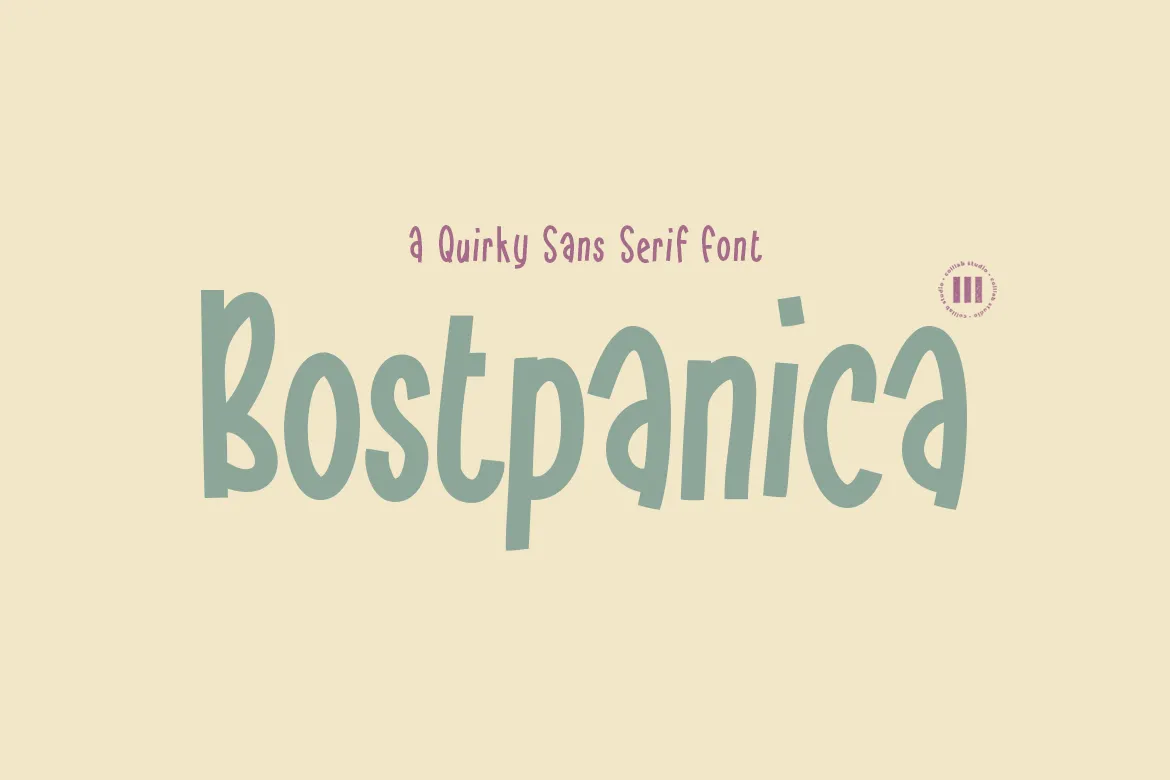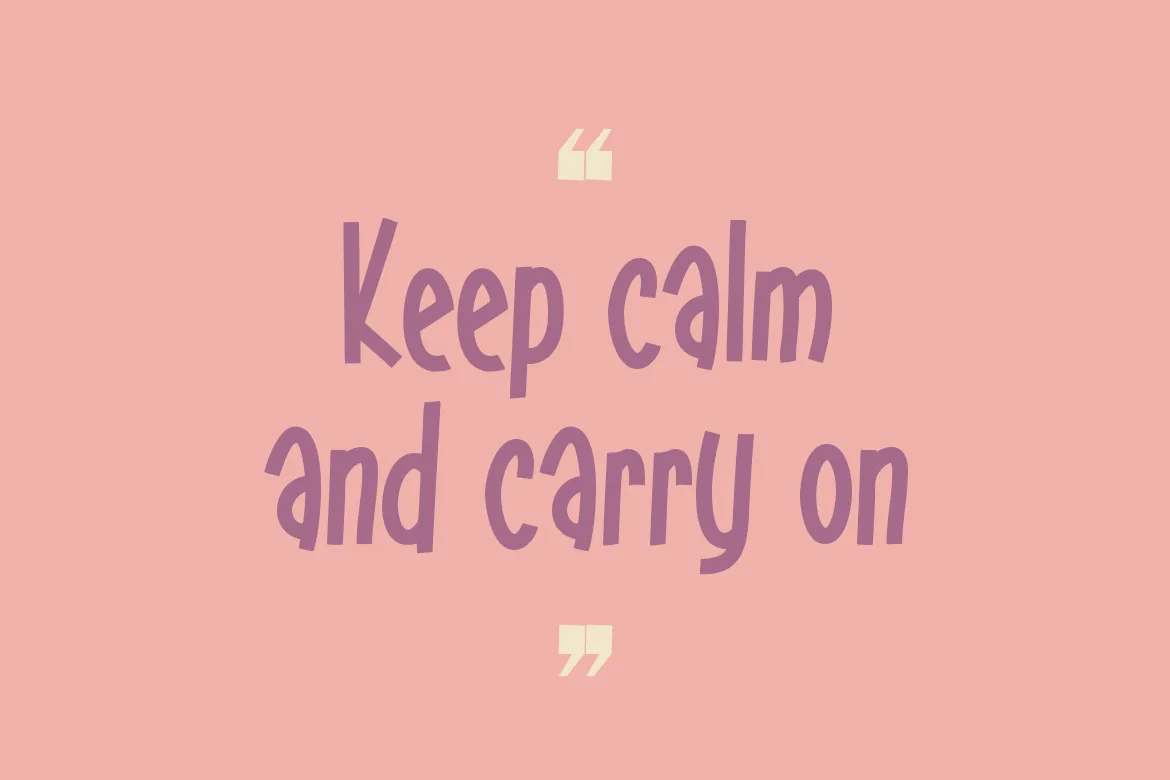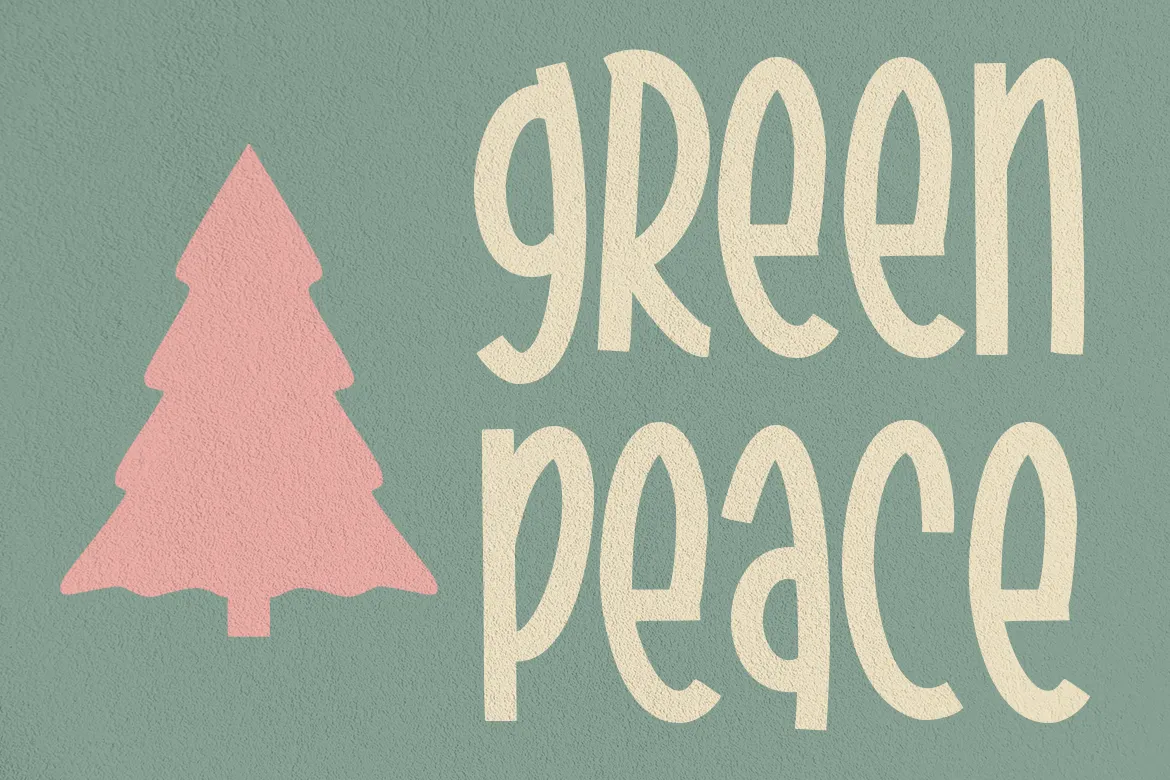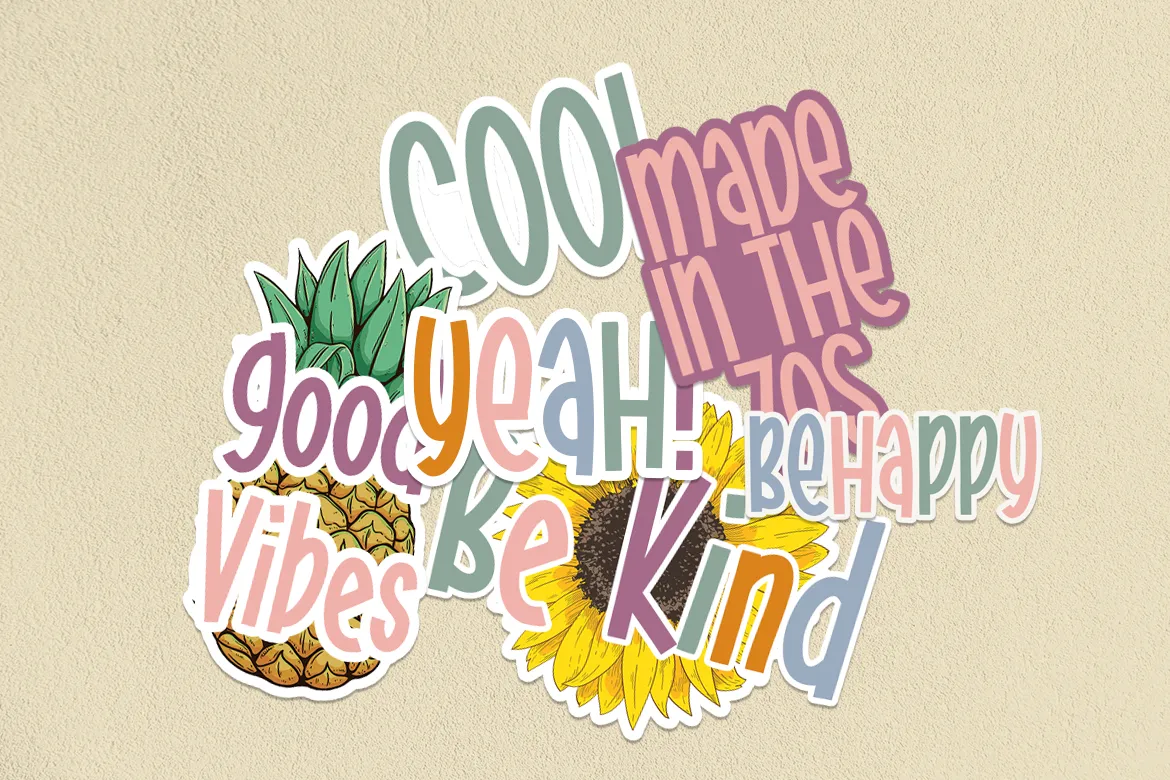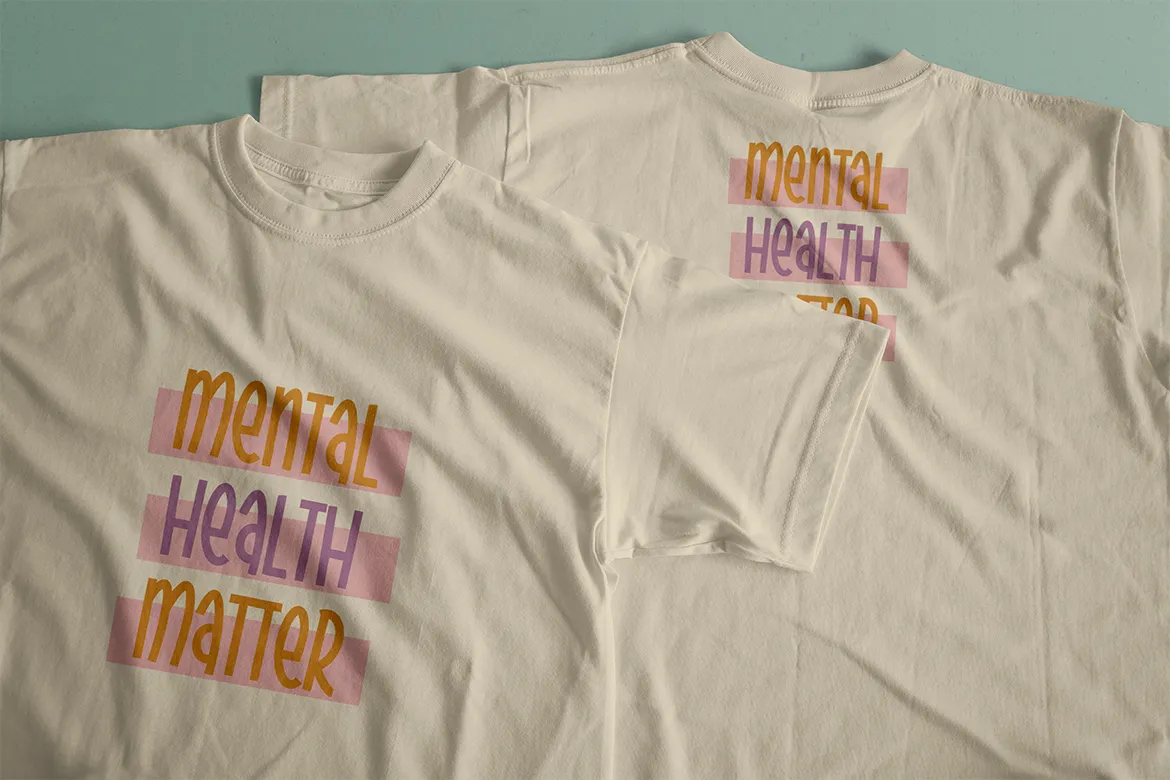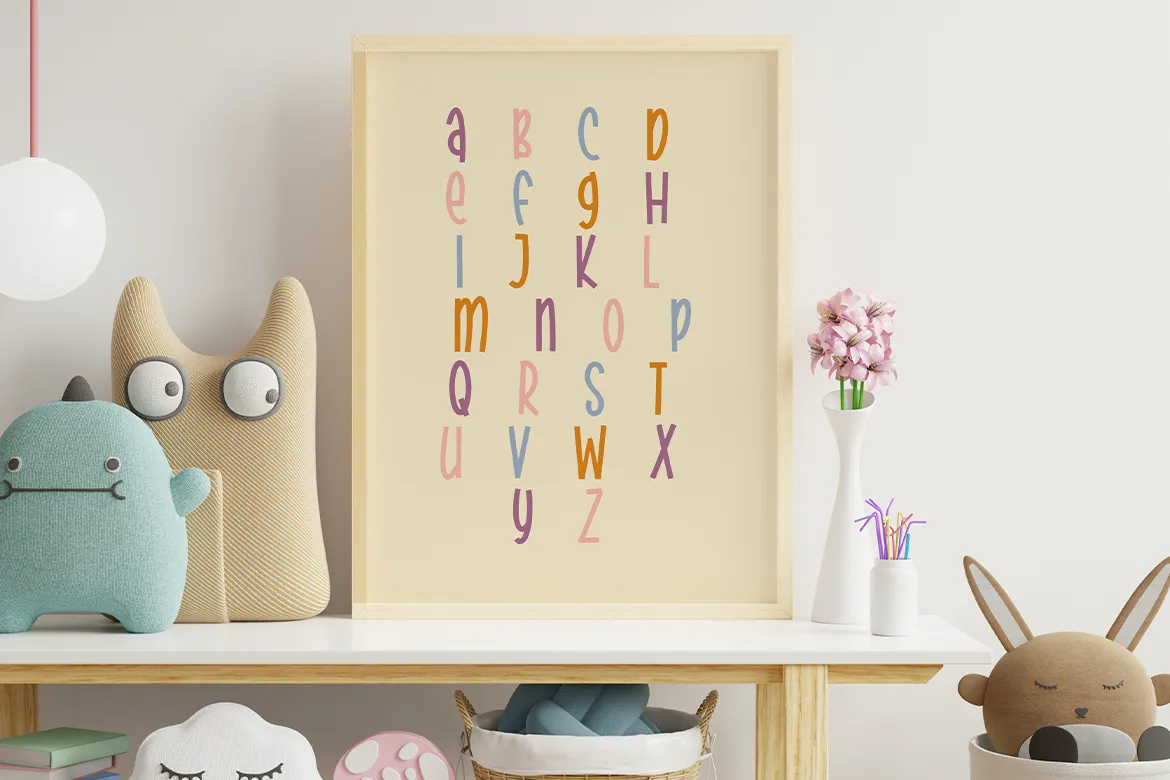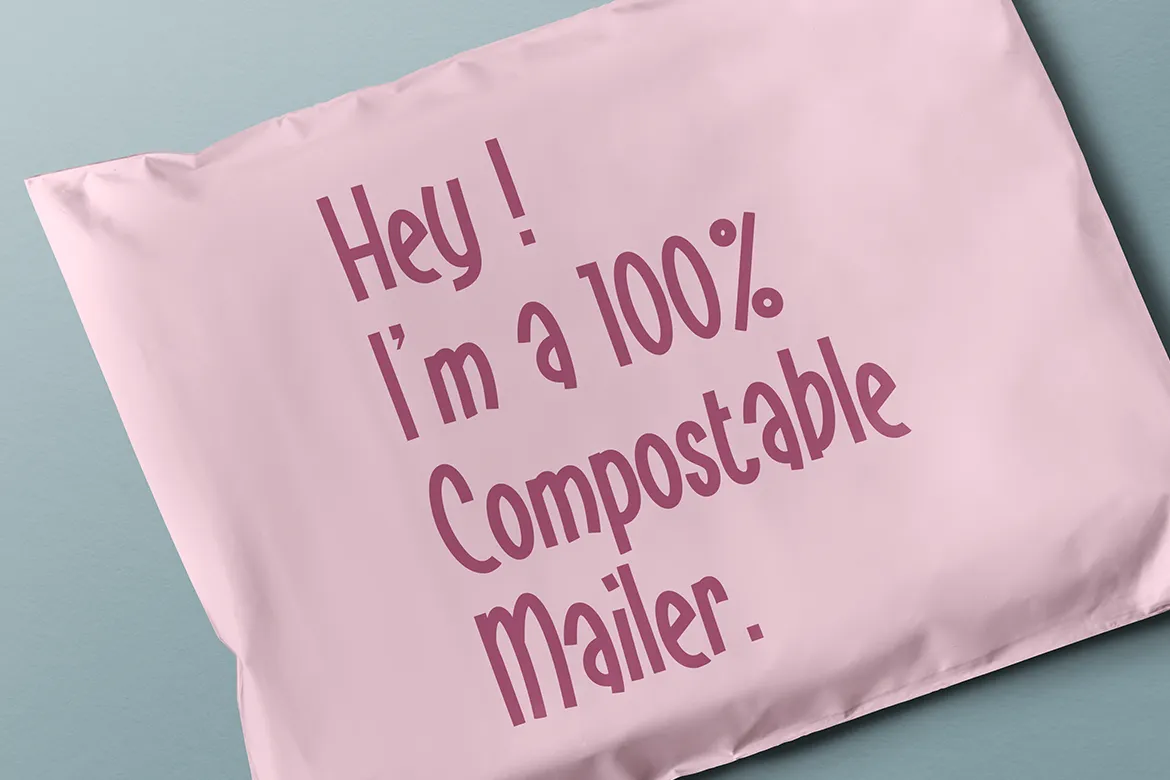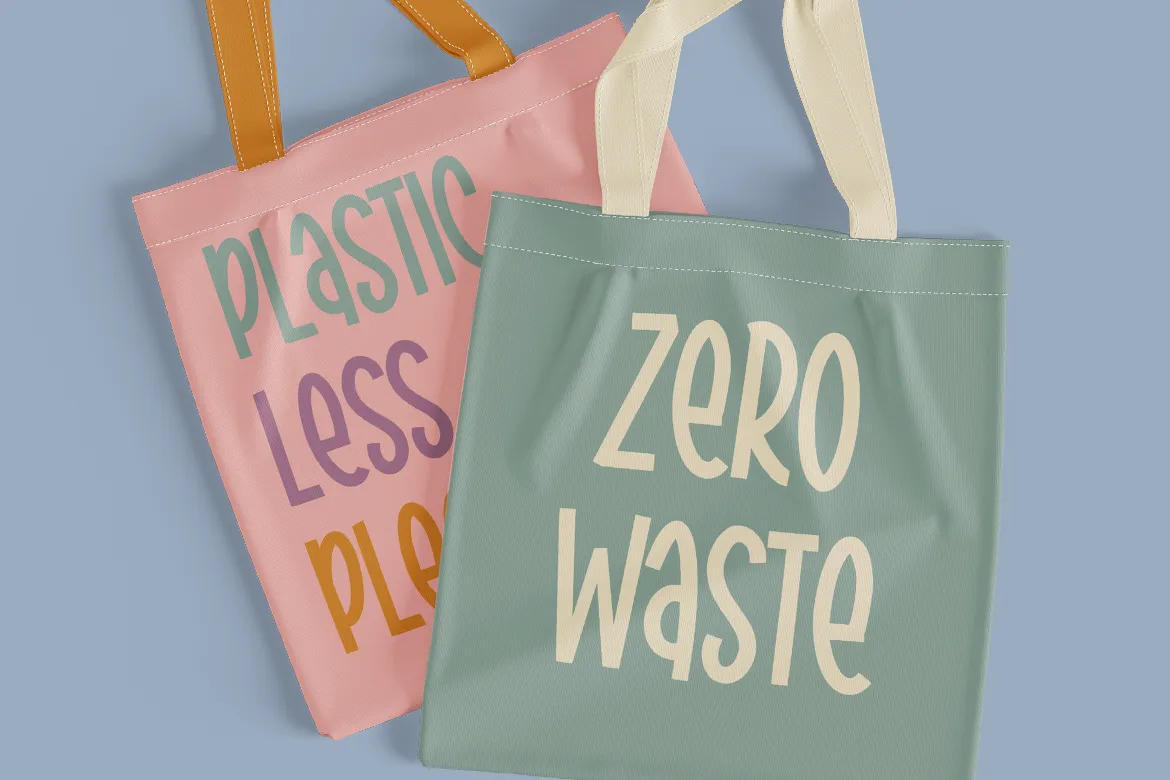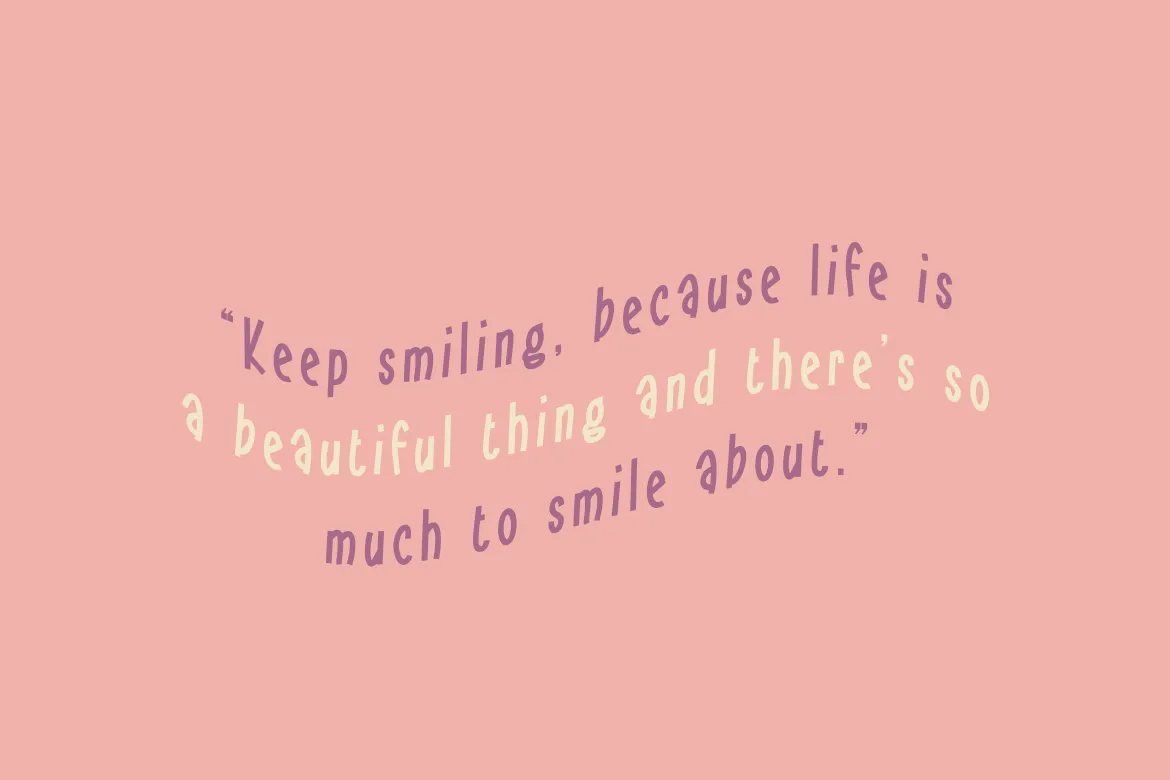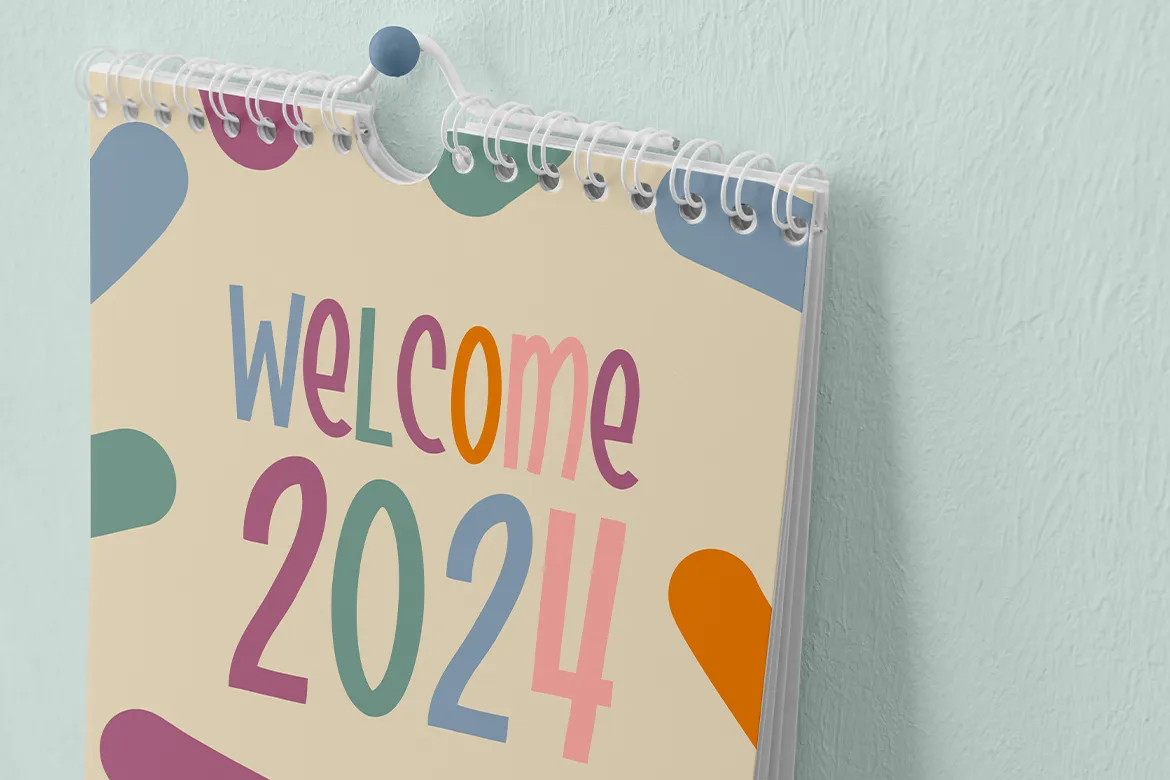
Bostpanica is a hand-drawn sans-serif family that feels warm, personal and whimsical. Taking its name from the Boston Panica Grass (Panicum amarum), it has bouncy curves with a hint of whimsy. This design was inspired by hand lettering created a few years ago and drawn exclusively with a our hand-crafted brush.
Bostpanica Typeface consists of 200+ glyphs, including full upper and lower case characters, numbers and punctuation. All glyphs are drawn with our hand-crafted brush. This typeface is especially suitable for fashion designs, logos, branding, packaging, titles, posters and much more.